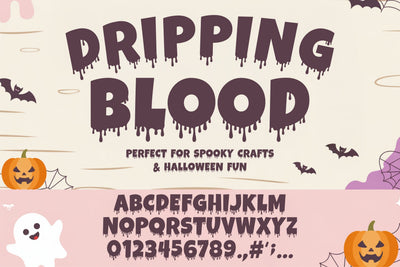
Dripping Blood Font SVG | Halloween Font, Dripping Alphabet
Introducing the tantalising Dripping Blood Font, the perfect component to elevate your spooky Halloween creations. Ideal for crafting eye-catching party invites, unique t-shirts, and eerie decorations, this font adds an element of fun yet chilling, ambiance to any DIY project. The font kit includes easy to install OTF and TTF files, compatible with all major design programs enhancing your creative process. Flesh out your ideas with a full alphabet set readily available in multiple formats - SVG, PNG, PDF, EPS, and JPG, an ideal choice for crafting masters using Cricut, Silhouette, and other cutting machines. Engage the kids in some thrilling craftwork or add a layer of horror to your merchandise with this bold, drippy styled font. The Dripping Blood Font is not just letters, it's a character that brings your chilling Halloween quotes or shirt designs to life in a frightfully fun way. Available immediately for digital download.